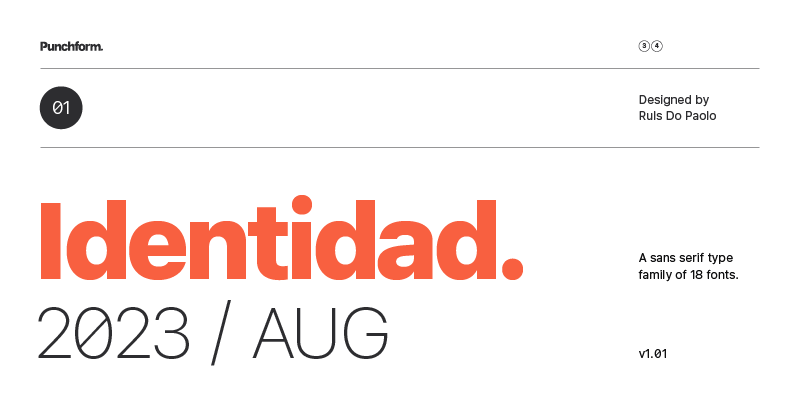
Download the full family here: https://www.myfonts.com/collections/identidad-font-punchform Identidad is a sans-serif type family designed to offer support for most languages in the Latin script. Identidad has nine weights, each with corresponding italics, 723 glyphs, and 22 OpenType features (aalt, calt, case, ccmp, dlig, dnom, frac, liga, locl, numr, ordn, pnum, sinf, ss01, ss02, ss03, ss04, ss05, subs, sups, tnum, zero). Identidad supports 377 languages and covers 3 Unicode blocks (Basic Latin, Latin-1 Supplement, Latin Extended-A). |